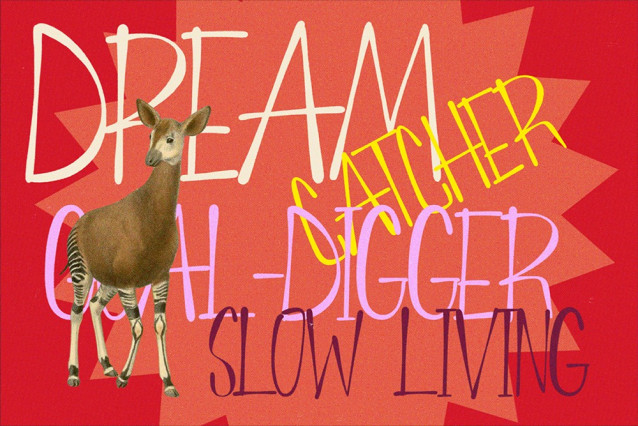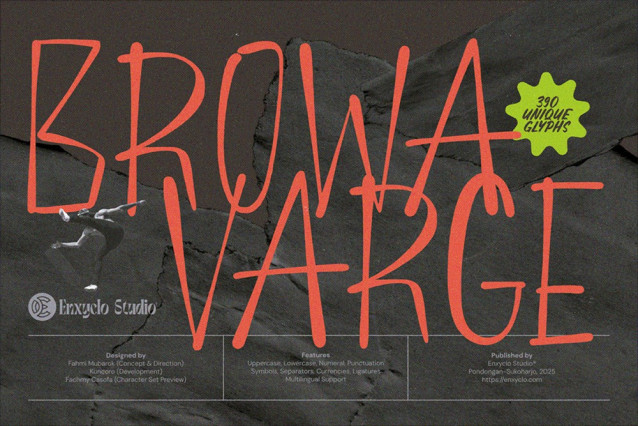
Browa Varge Font
Browa Varge Font, a tall, expressive hand-drawn display font with bold character and playful charm. Crafted with personality, each letterform is uniquely imperfect, giving your design projects a warm and organic feel. Its elongated proportions and artistic flair make it ideal for editorial titles, branding, packaging, album covers, posters, and modern logotypes. Whether you’re building a quirky brand, an eye-catching social media visual, or a standout event poster, Browa Varge delivers both personality and versatility.